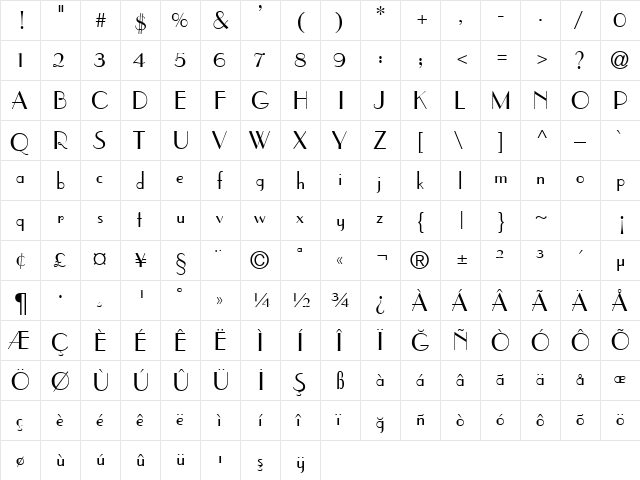
TR Paragon Plain Font Preview
TR Paragon Plain
Design Context for TR Paragon Typeface
TR Paragon offers clean, dependable letterforms without strong stylistic allegiance, making it a practical choice for designers who need flexibility.